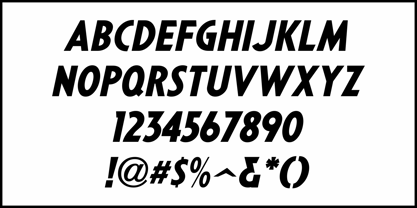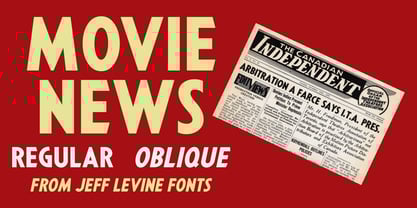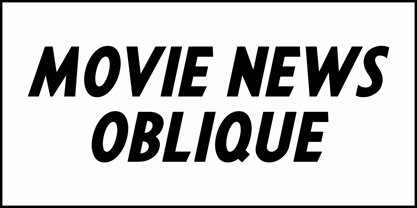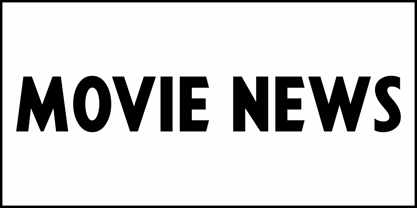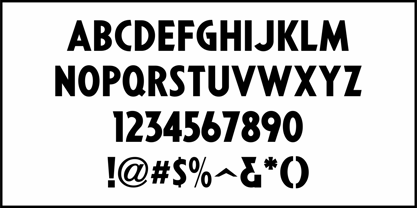
Movie News JNL
by Jeff Levine
The Movie News JNL Font Family was designed by Jeff Levine and published by Jeff Levine. Movie News JNL contains 2 styles and family package options. More about this family
Based on various headlines found within 1937 issues of The Canadian Independent, a trade paper for the film industry, Movie News JNL is available in both regular and oblique versions.